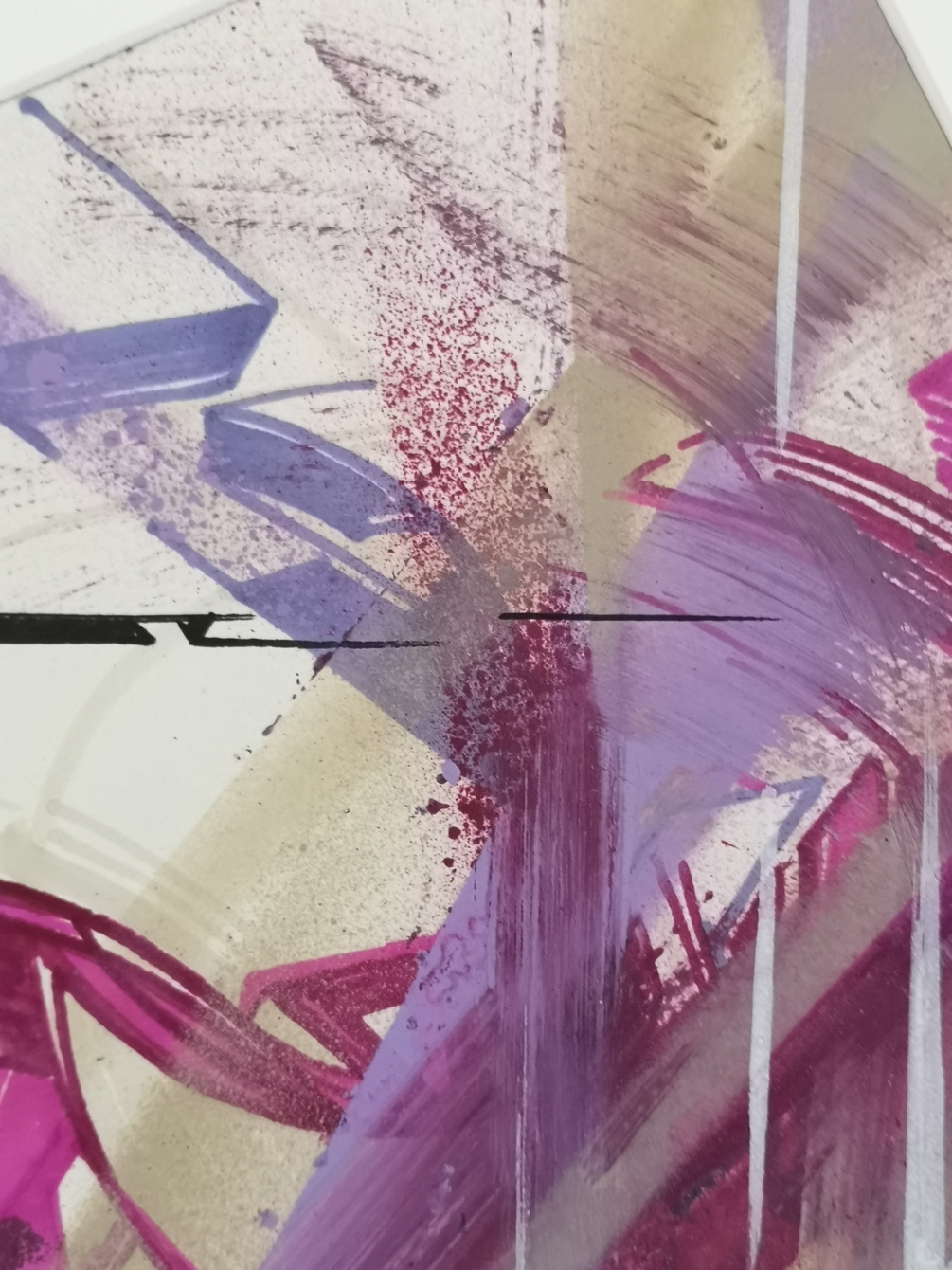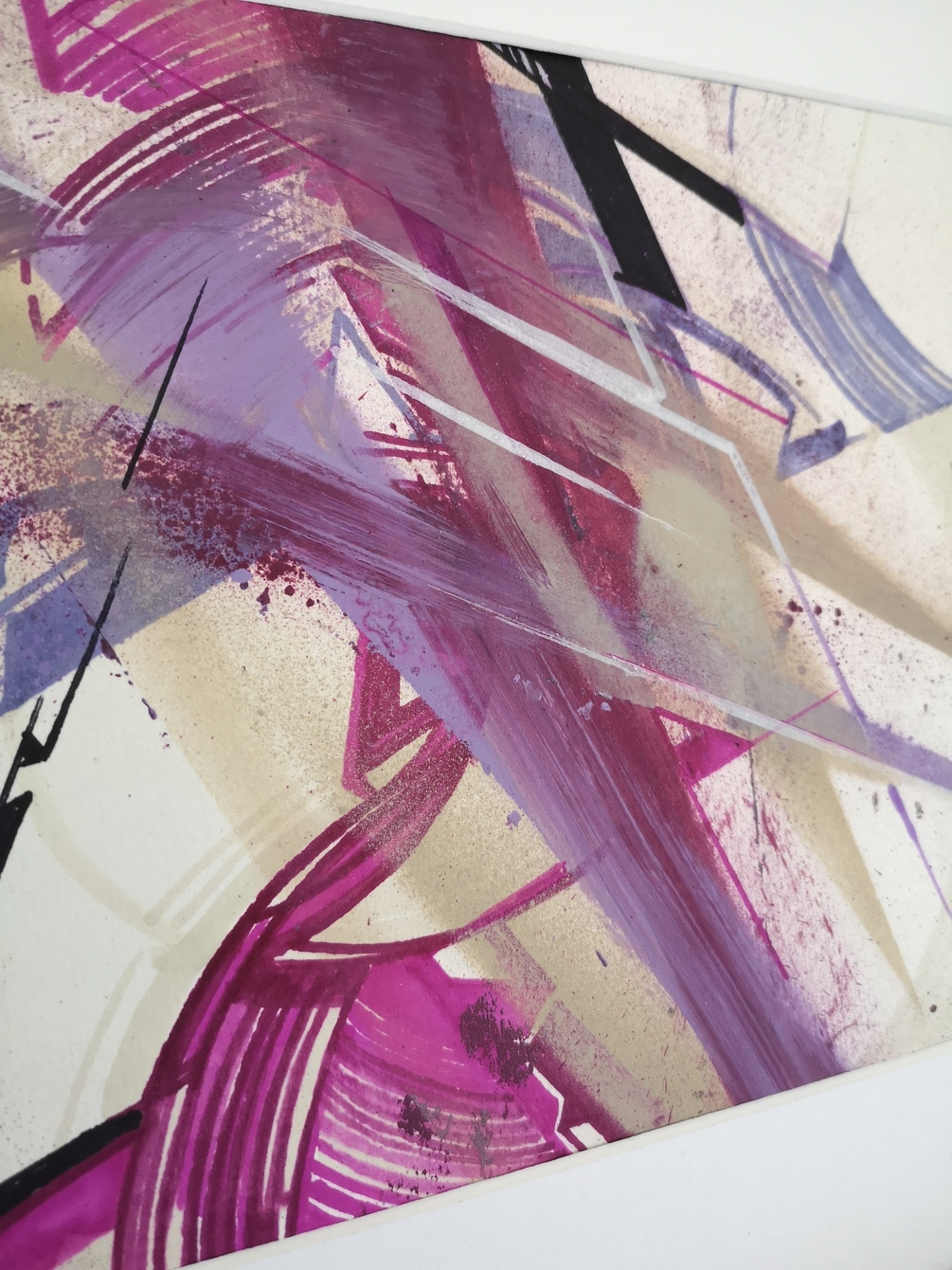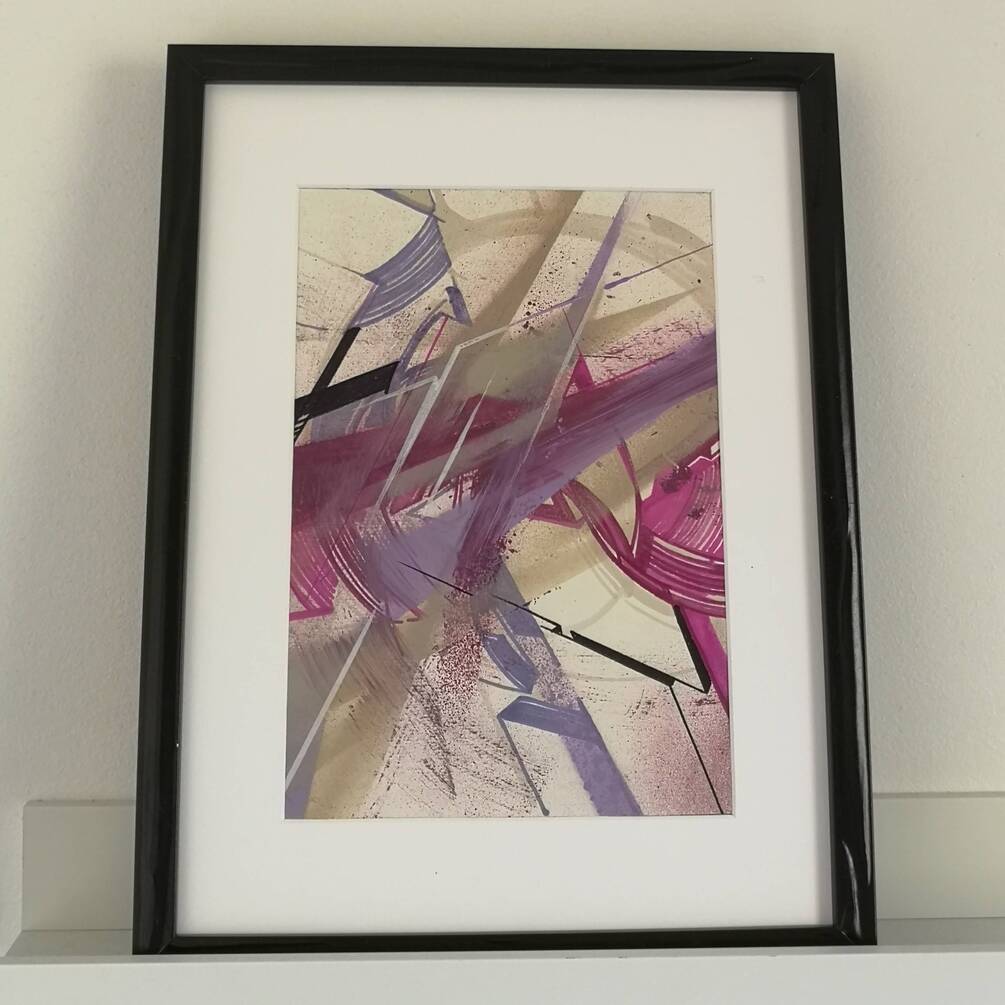
Mads Sonne
Earth Space
Space agents and Earth healers
Since I dont write signature on the front, i leave it open to turn, twist or put it upside down or sideways, if thats the preference.
Some have told me, that they have the work presented in one direction and after some time, they turn it around and different composition appears.
Its carried out with markers, spray and this is an original piece of work, and will not be reproduced, #editionofOne. #letterscapes